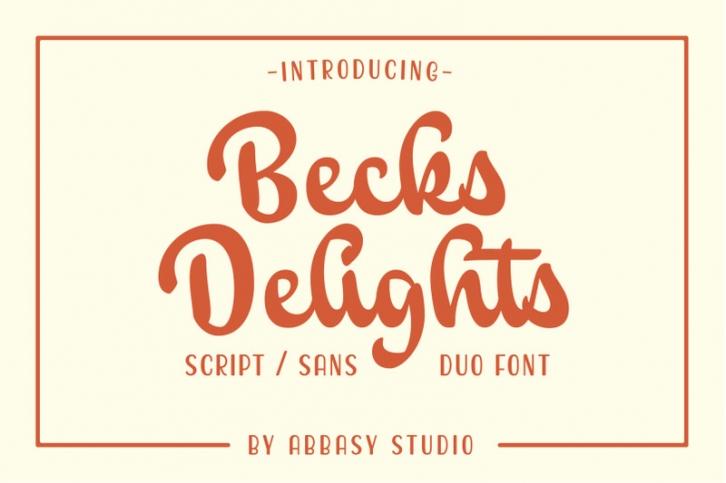
Introducing Becks Delights Font Duo
Becks Delights is a vintage clean brush script. this font features with Stylistic Alternates that allows you to mix and match pairs of letters to fit your design. Perfect for branding projects, Logo design, Clothing Branding, product packaging, magazine headers, etc.
- Character Set A-Z
- Numerals & Punctuations
- Multilingual characters (Western European & Central European)
- Stylistic alternates